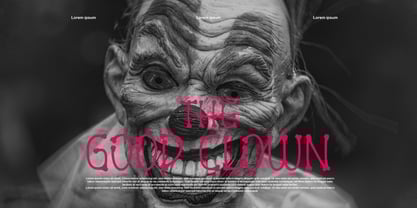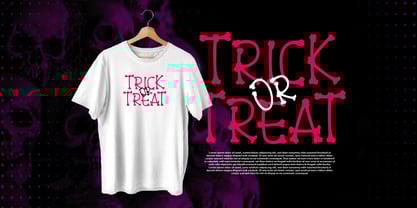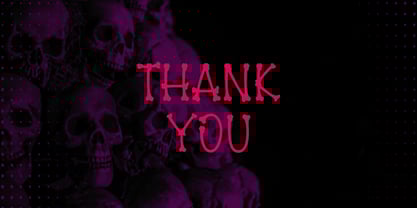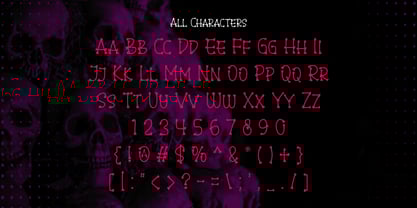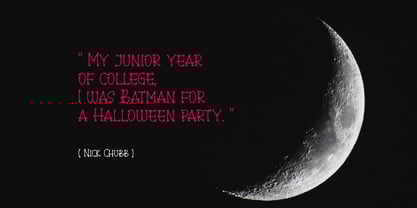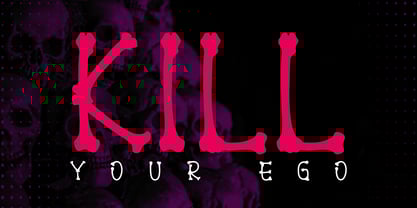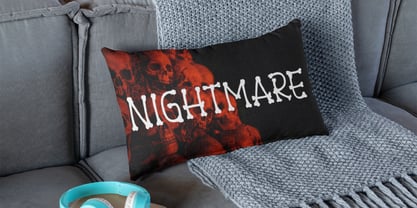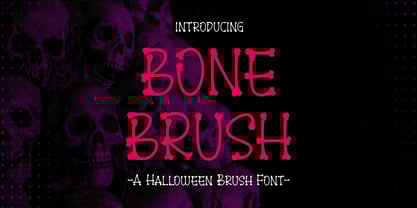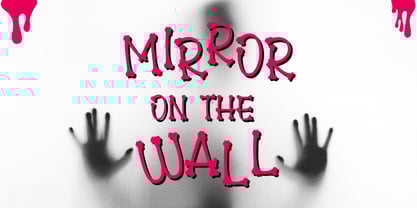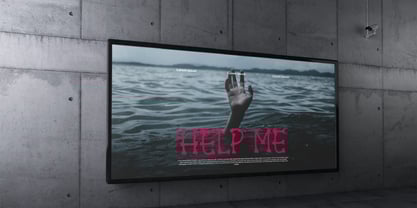
Bone Brush
by Patlot Digital Studio
The Bone Brush Font Family was designed by Gugun Gunawan and published by Patlot Digital Studio. Bone Brush contains 1 styles. More about this family
Bone Brush is a cheerful yet spooky font. With its wide versatility, this playful typeface adds a spooky touch to a variety of designs. Whether it’s livening up a Halloween theme or adding a thrilling twist to a spooky theme,
Bone Brush leaves its own unique mark. From embellishing logos to creating t-shirt graphics, embellishing print designs to website headlines—this font is adept at evoking interest. Let it captivate your photo frames, flyers, music album covers, posters, or image sliders with awe.
In essence, Bone Brush effortlessly evokes a haunting allure, contributing to an immersive and spooky atmosphere.
Designers: Gugun Gunawan
Foundry: Patlot Digital Studio